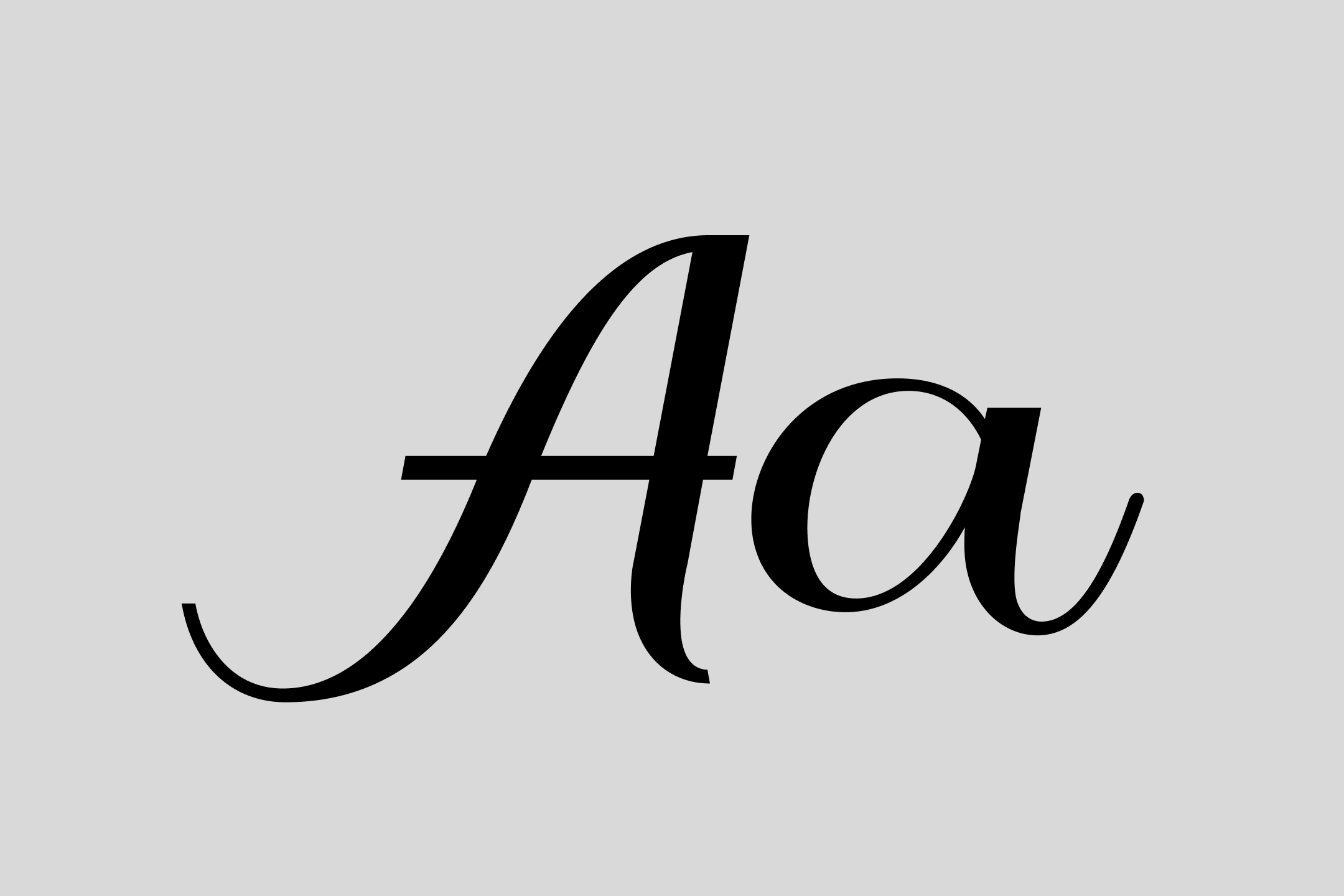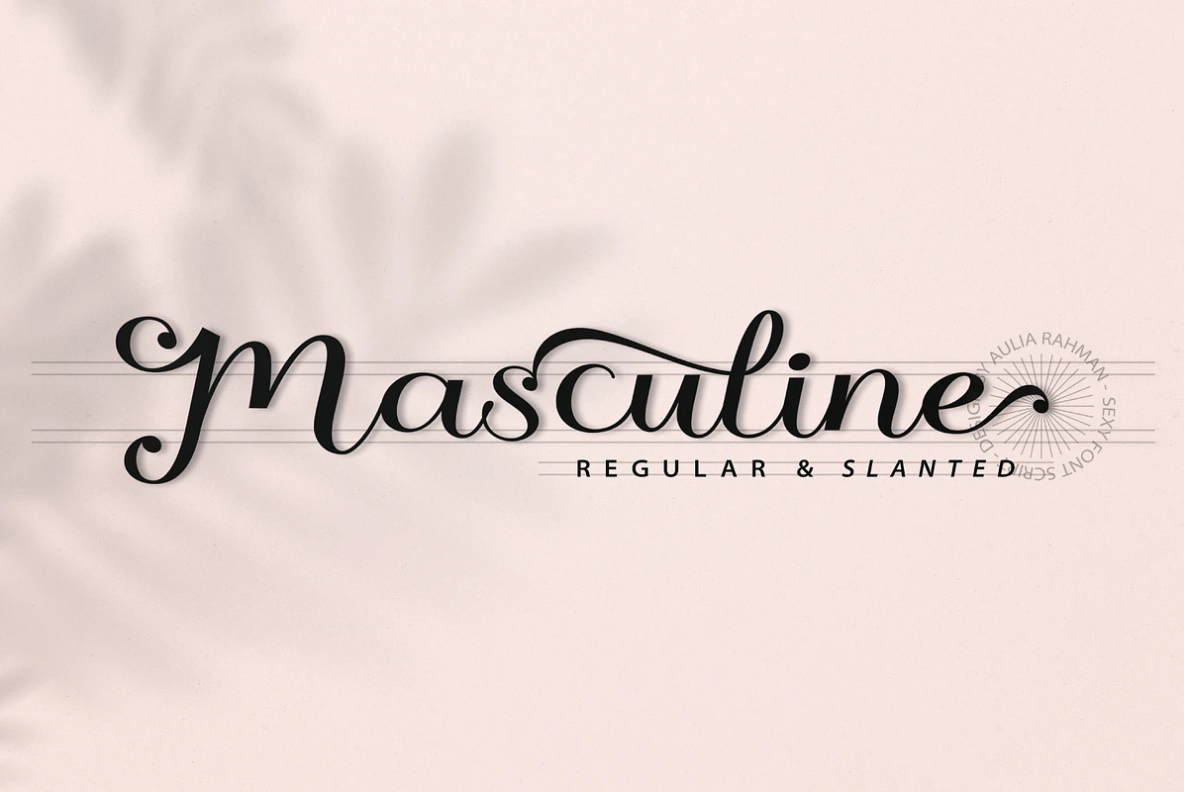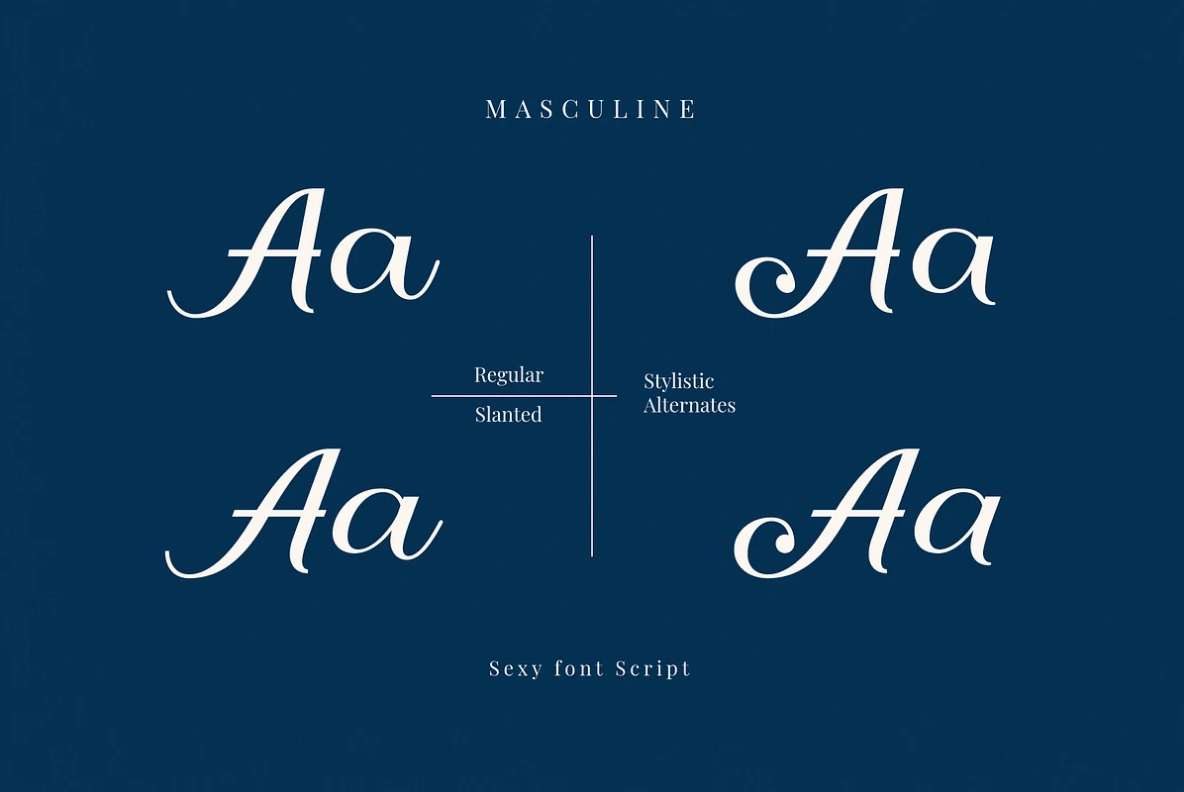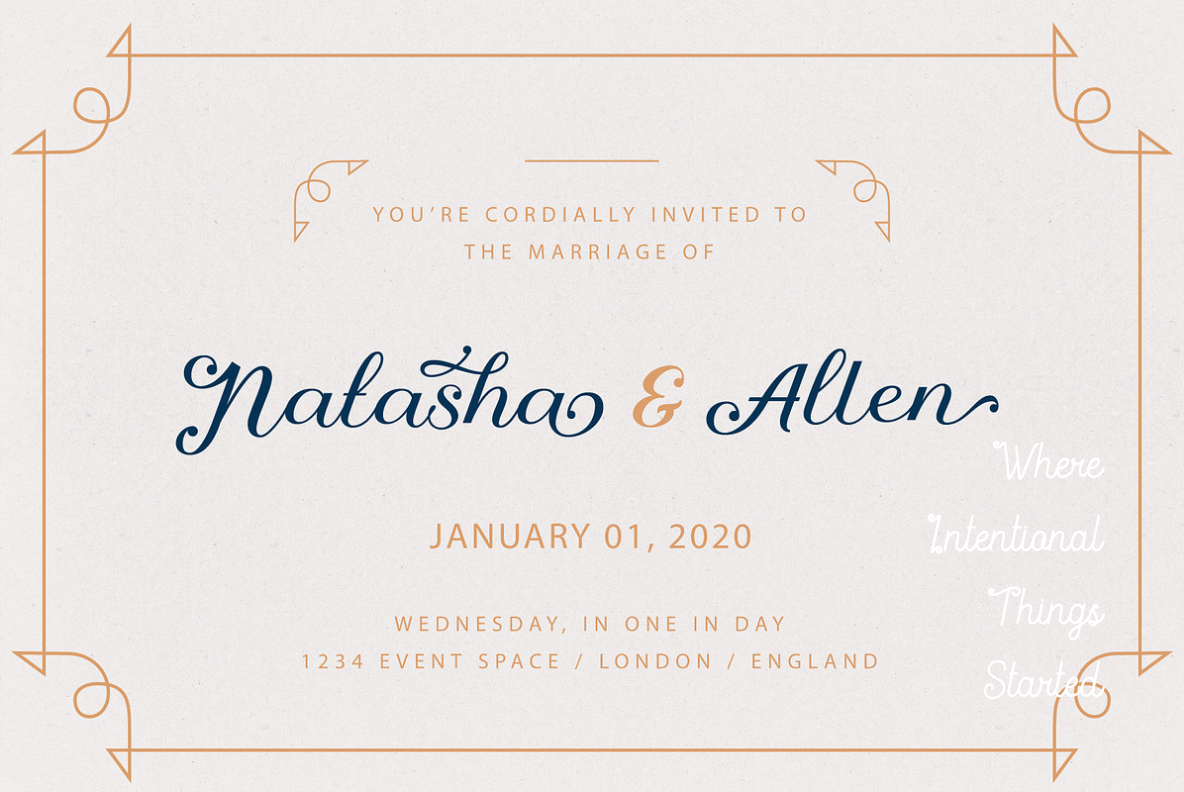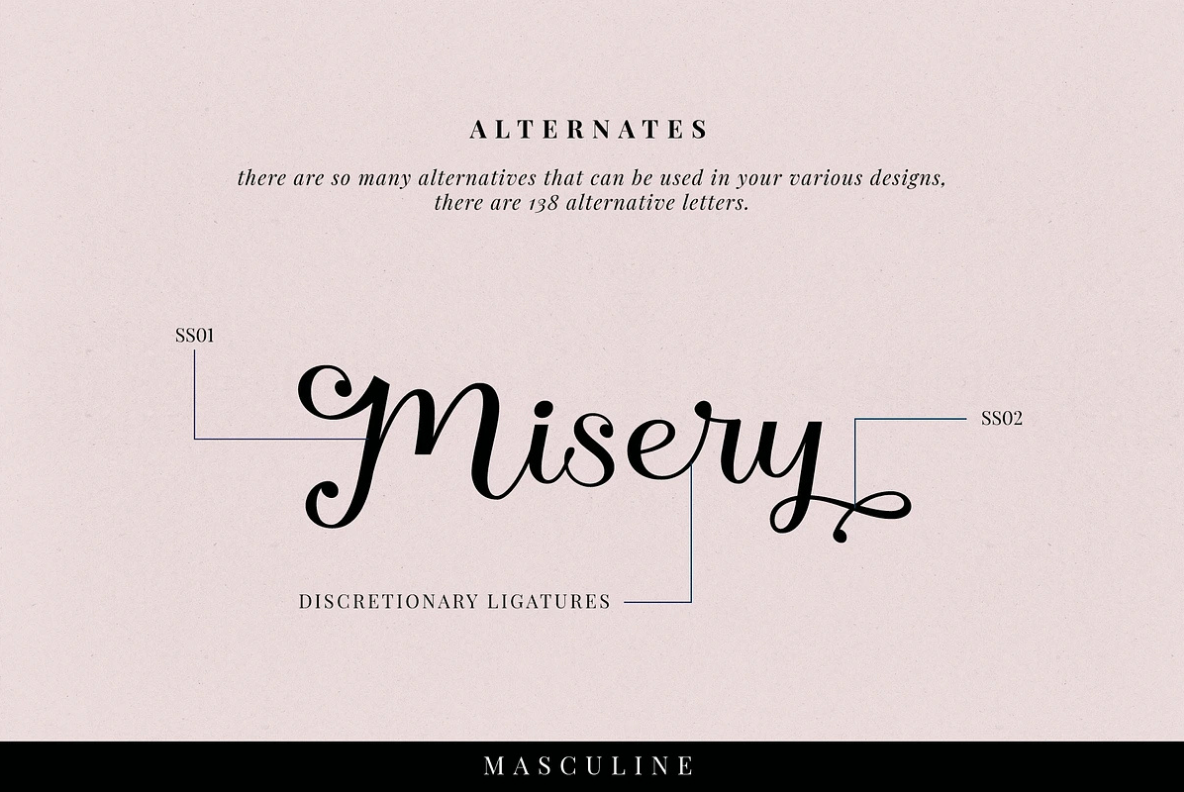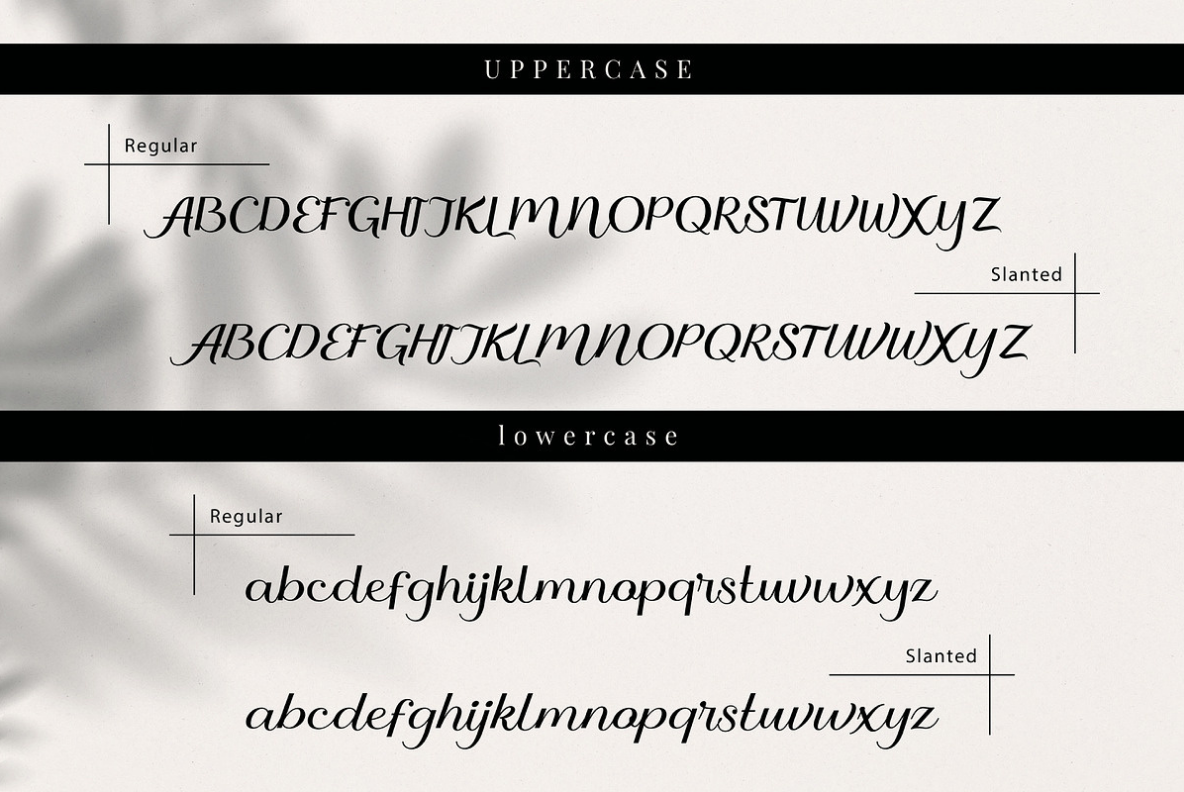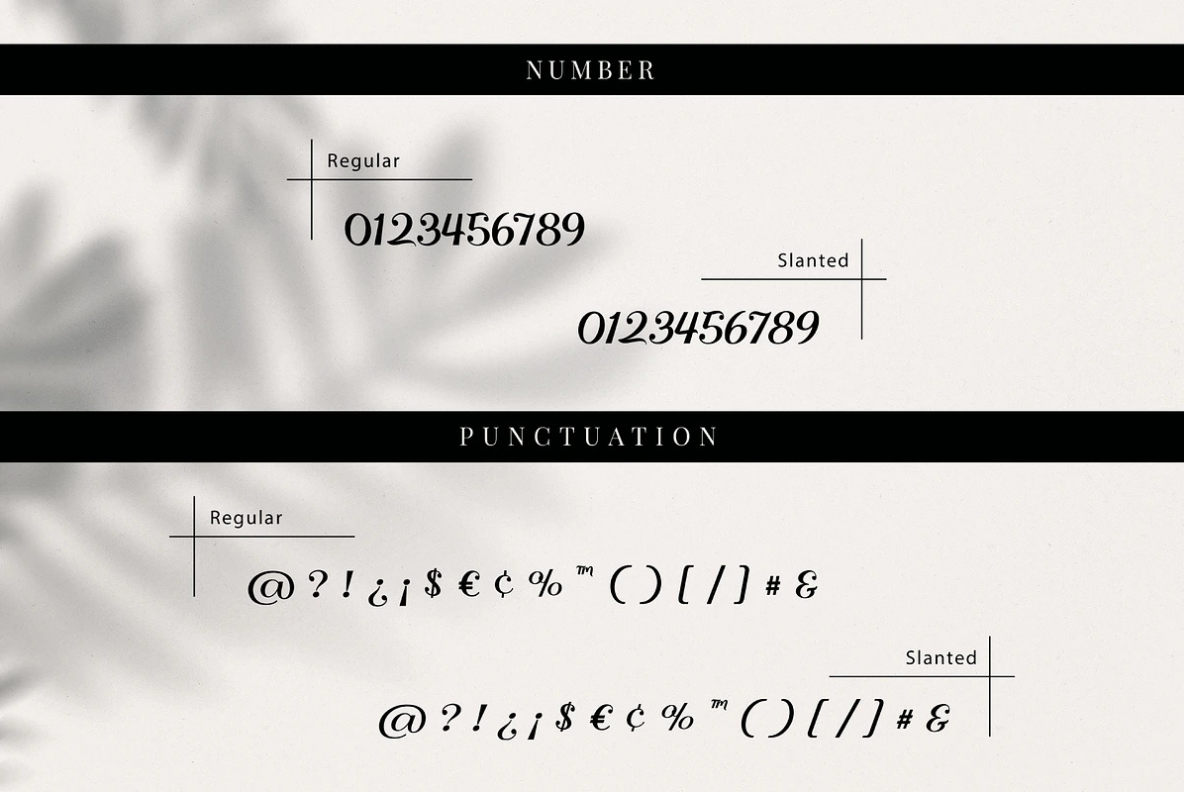
Masculine
Masculine is a refined script font duo created for designers, entrepreneurs, and creative professionals who appreciate elegant typography with maximum flexibility.
Elegant Design for Meaningful Brands
Masculine brings a gentle, handwritten rhythm to elegant visual branding.
Introducing Masculine, an elegant script typeface featuring two distinctive styles that bring versatility and sophistication to your typography. Combining graceful flowing strokes with refined letterforms, Masculine is designed for creators who want to build timeless, luxurious, and memorable visual identities.
With both Regular and Slanted styles, plus a collection of beautiful stylistic alternates and ligatures, Masculine gives you the flexibility to create typography that feels truly custom-made. Whether you’re designing luxury logos, wedding invitations, premium packaging, or editorial layouts, this font delivers elegance in every letter.
Its smooth curves and handcrafted details make Masculine an excellent choice for branding projects that demand both personality and professionalism.
Perfect For
• Luxury Logo Design
• Fashion Branding
• Beauty & Cosmetic Brands
• Wedding Invitations
• Boutique Packaging
• Signature Logos
• Editorial Design
• Magazine Headlines
• Product Labels
• Social Media Graphics
• Business Cards
• Website Headers
Features
• 2 Font Styles (Regular & Slanted)
• Beautiful Stylistic Alternates
• Elegant Ligatures
• Uppercase & Lowercase
• Numbers & Punctuation
Masculine is a refined script font duo created for designers, entrepreneurs, and creative professionals who appreciate elegant typography with maximum flexibility. From modern luxury branding to romantic wedding designs, Masculine helps every project achieve a polished and sophisticated look.